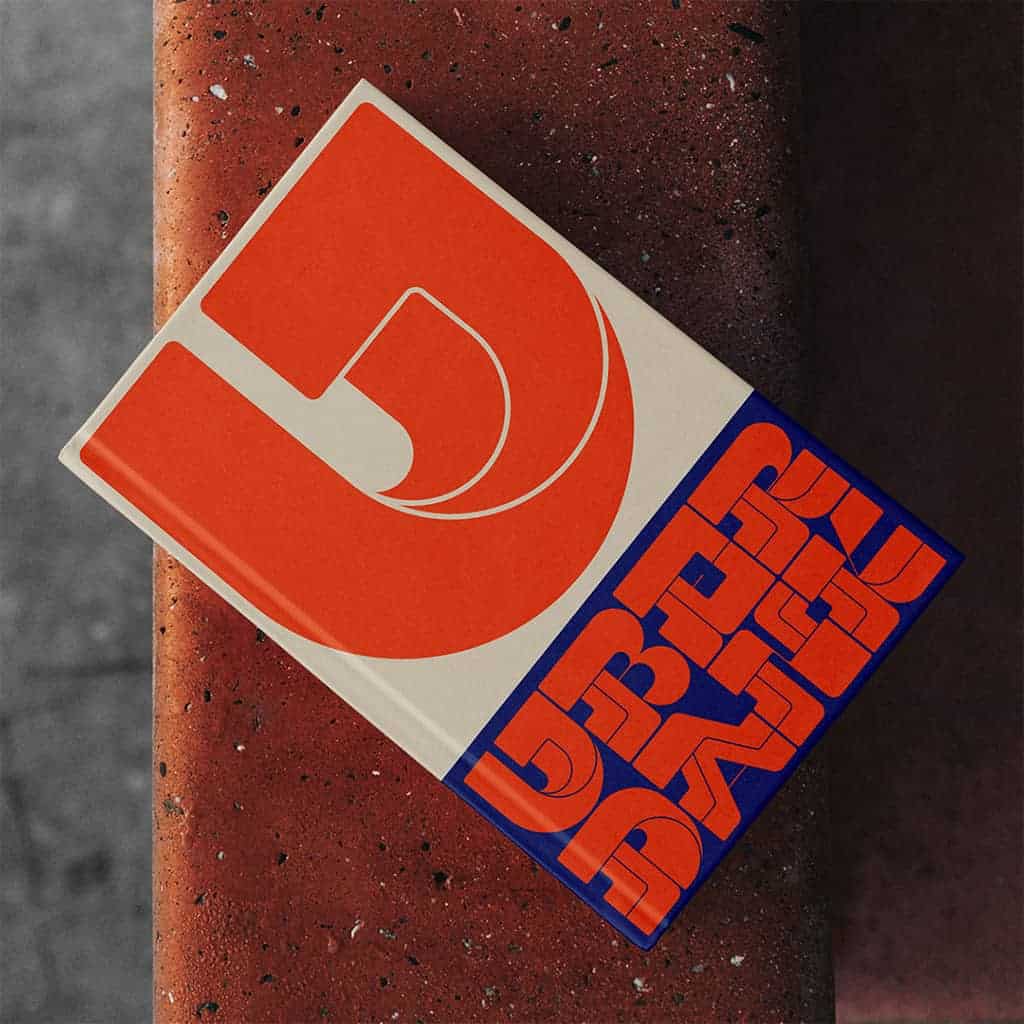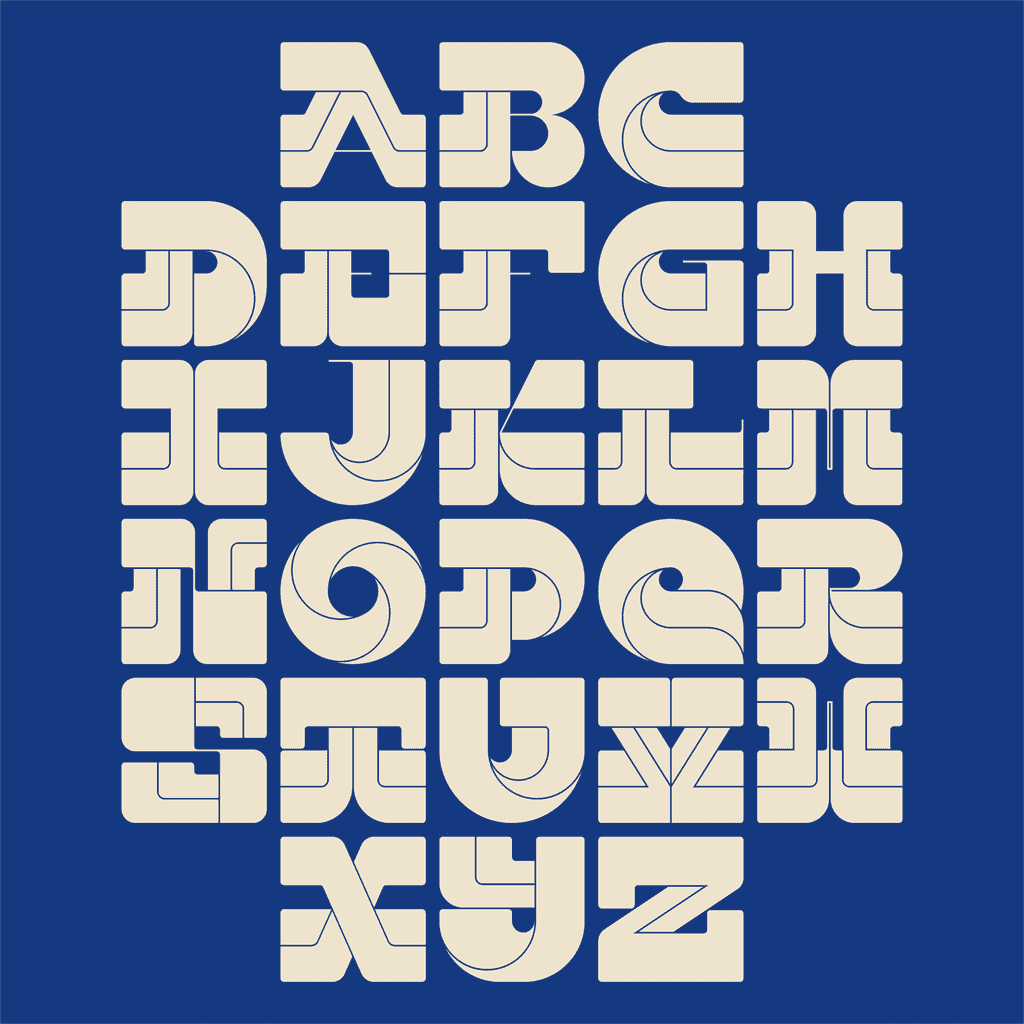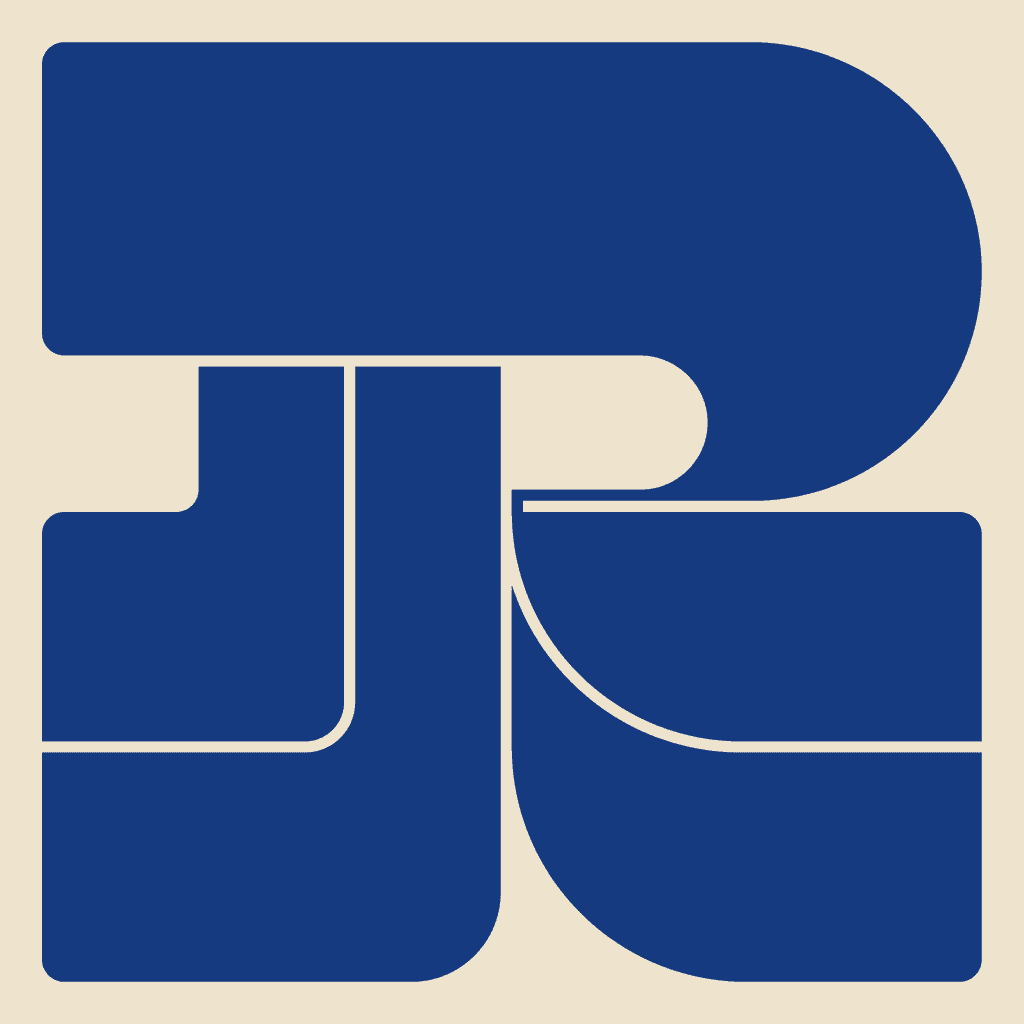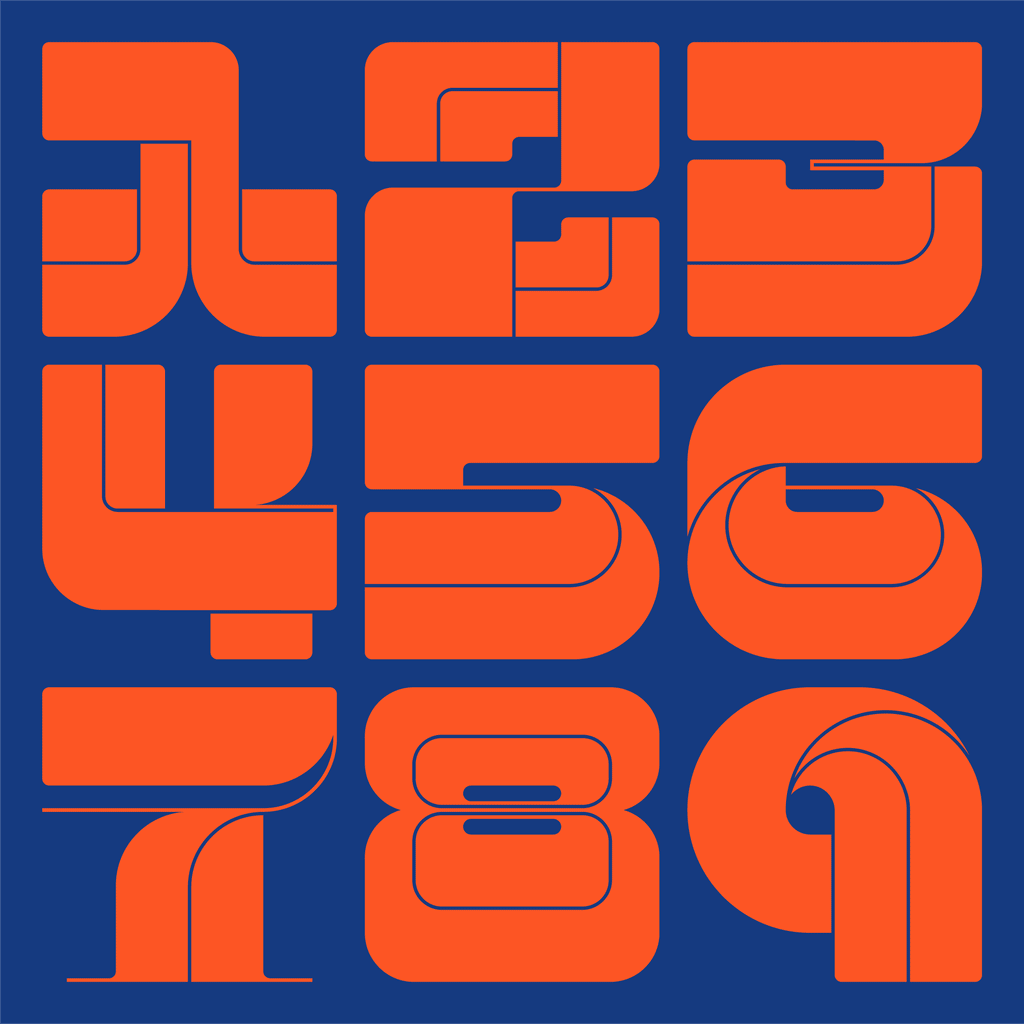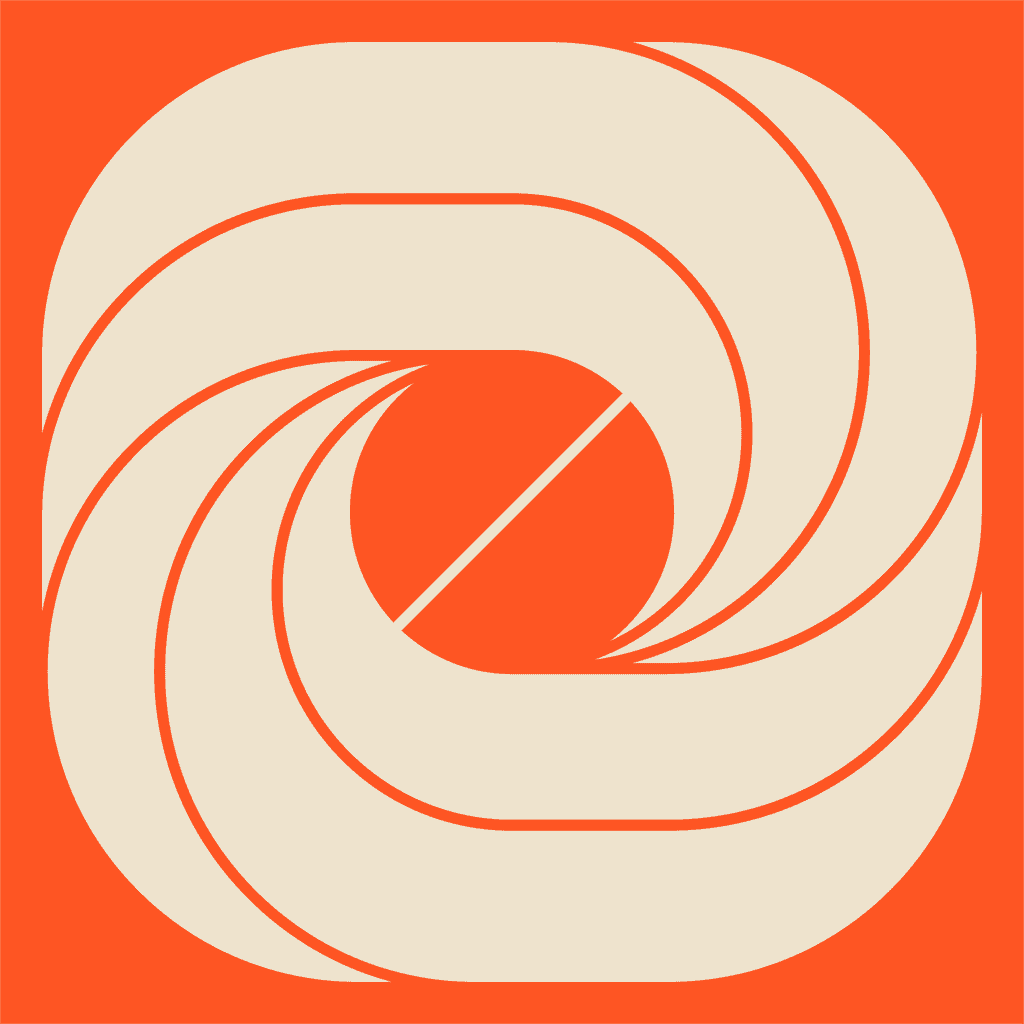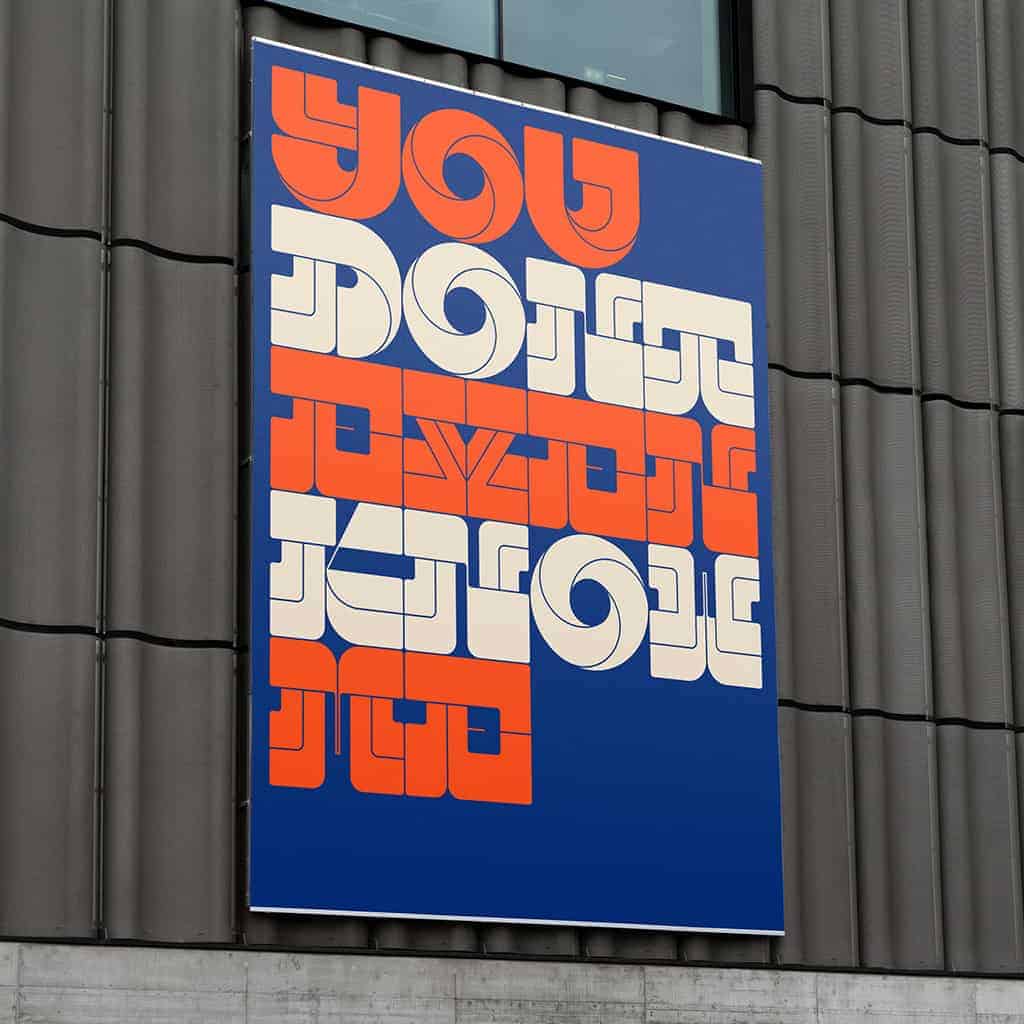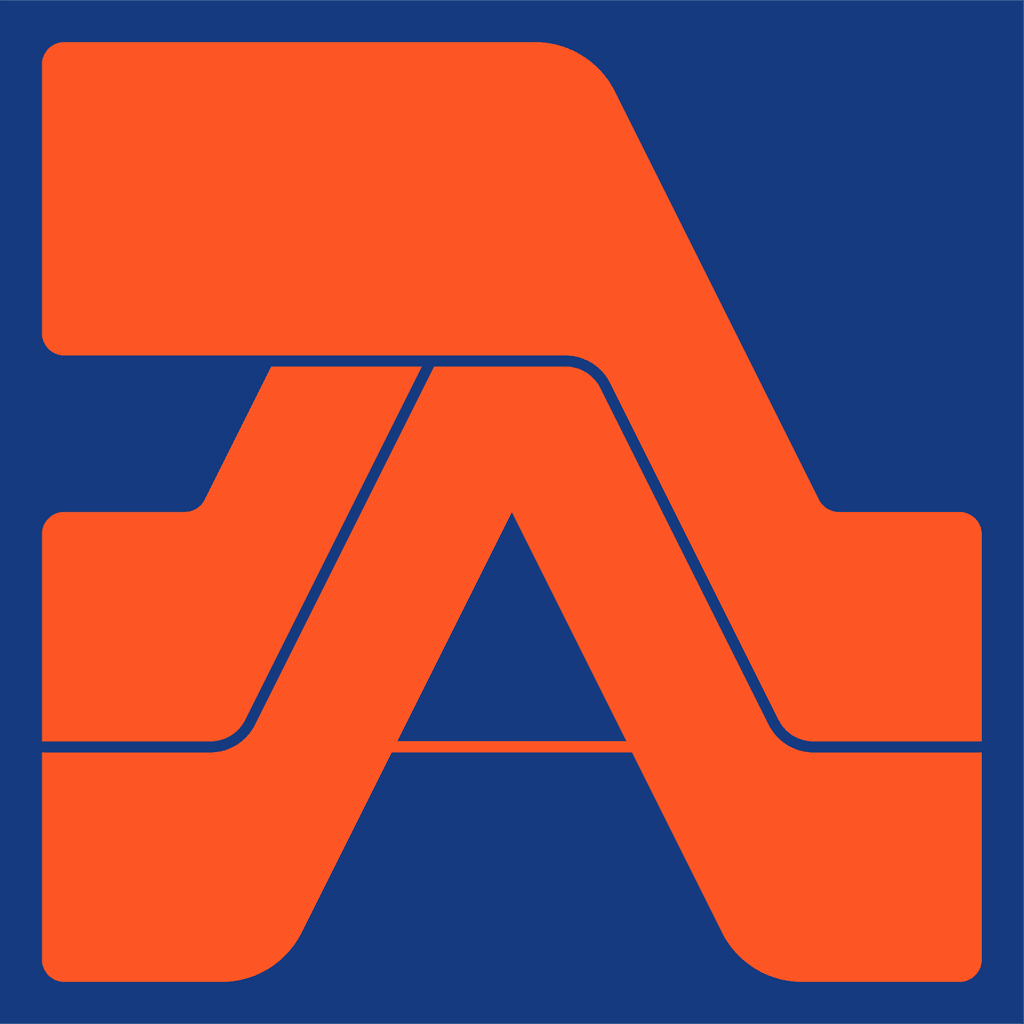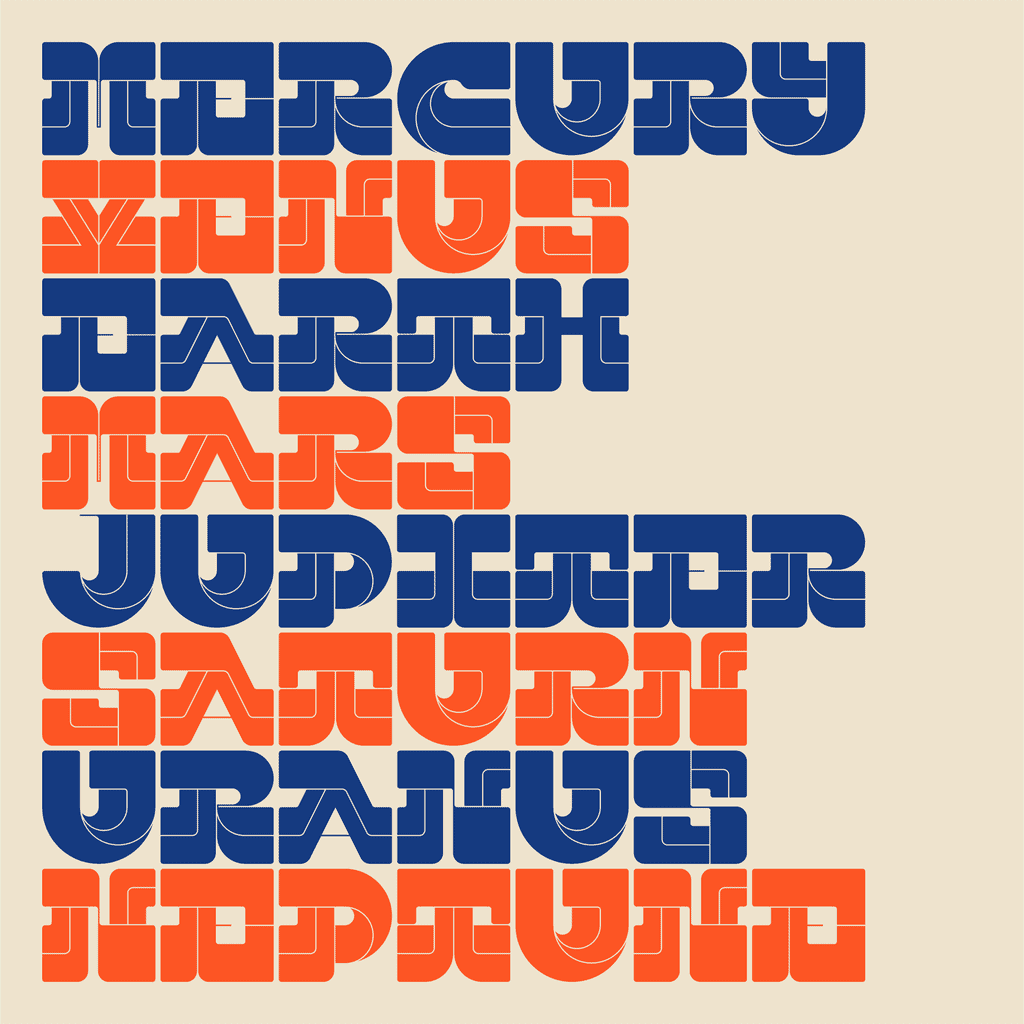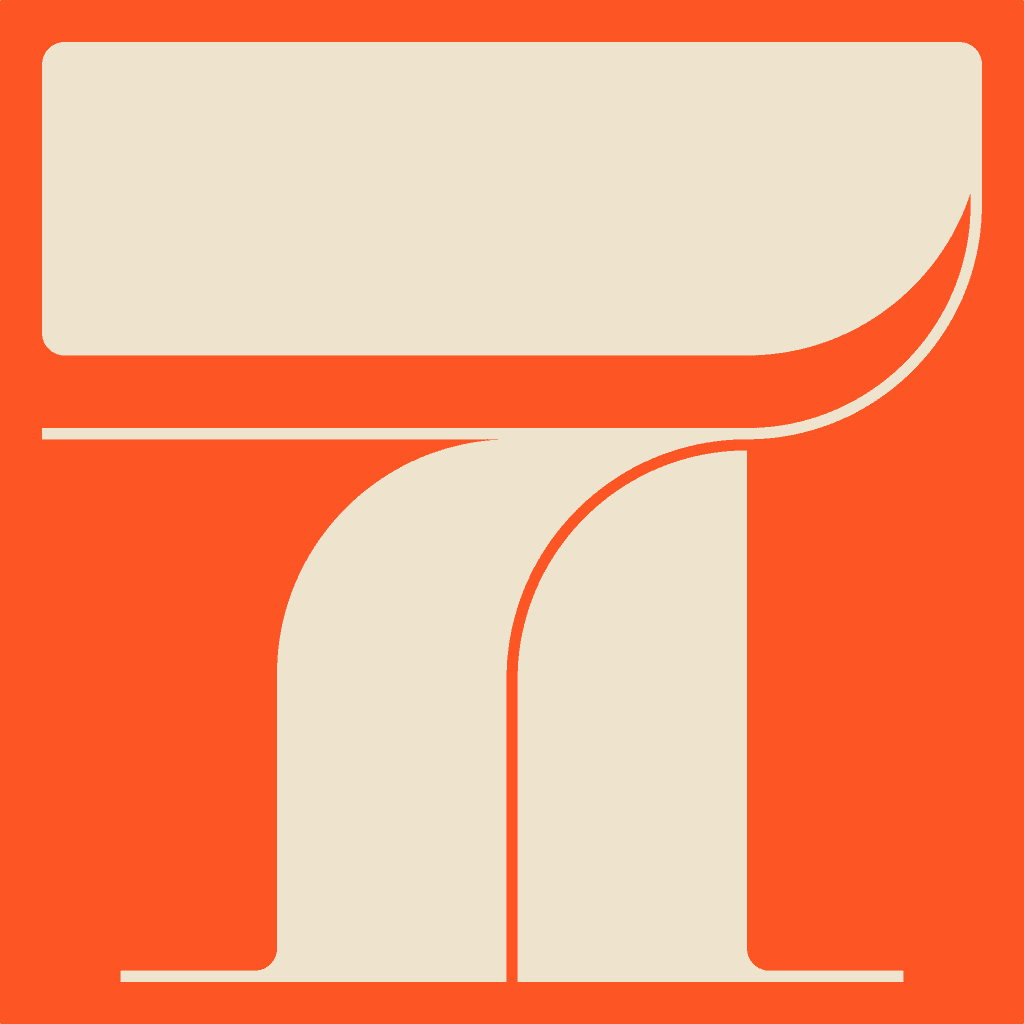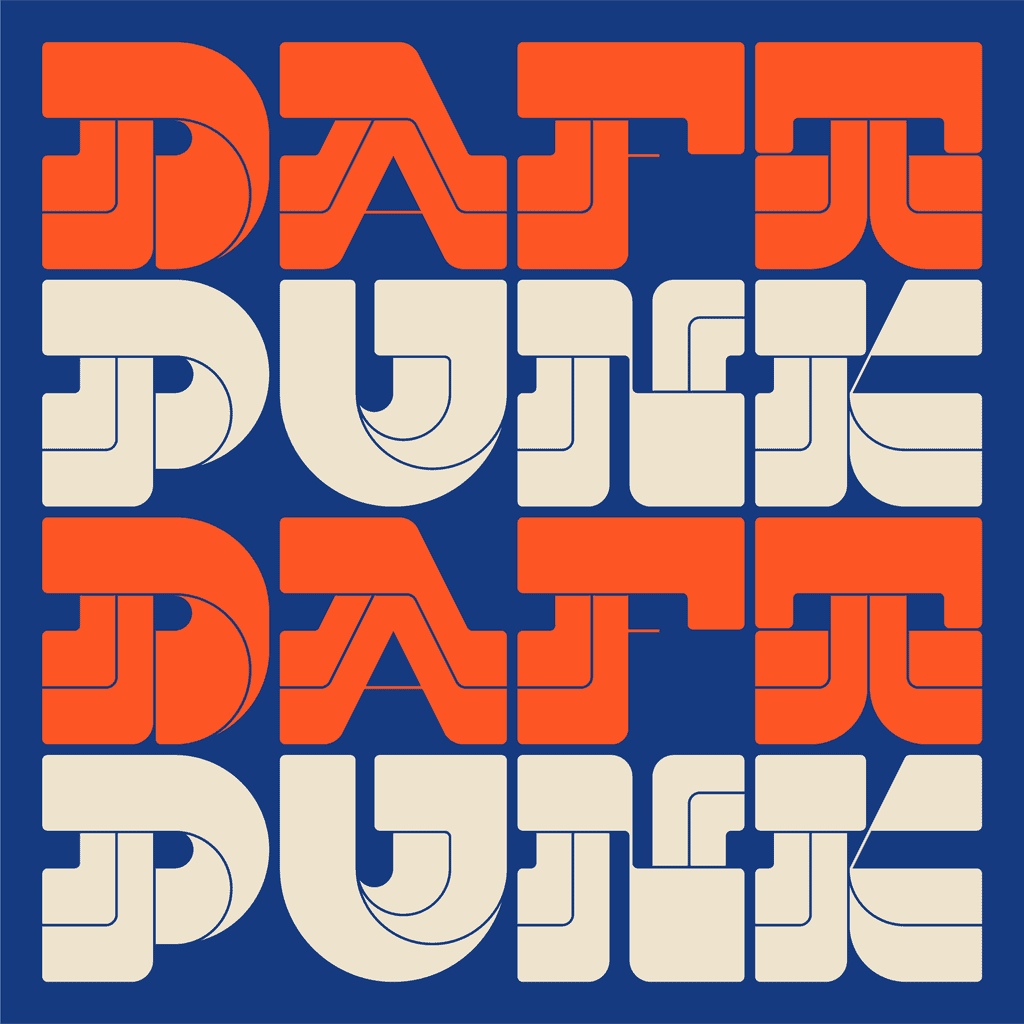
UBERDANK
UBERDANK is an all uppercase modular mono slab serif display typeface. Built for bold headlines and statement pieces. Its perfectly square compact shape makes this font unique for stacking and tessellating to fit any space or application to its fullest badass potential.
Got something loud to say?...UBERDANK will help you say it, whilst serving some extra retro punch!
UBERDANK
UBERDANK is an all uppercase modular mono slab serif display typeface. Built for bold headlines and statement pieces. Its perfectly square compact shape makes this font unique for stacking and tessellating to fit any space or application to its fullest badass potential.
Got something loud to say?...UBERDANK will help you say it, whilst serving some extra retro punch!
UBERDANK is an all uppercase modular mono slab serif display typeface. Built for bold headlines and statement pieces. Its perfectly square compact shape makes this font unique for stacking and tessellating to fit any space or application to its fullest badass potential.
Got something loud to say?...UBERDANK will help you say it, whilst serving some extra retro punch!